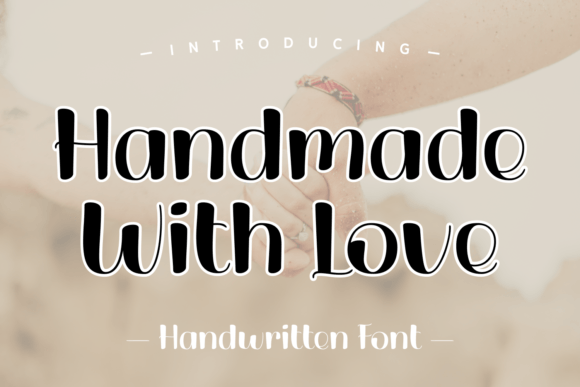
Unveil the allure of Handmade with Love, a script font crafted with meticulous care. Its flowing strokes and enchanting curves evoke a sense of timeless romance, making it the perfect accompaniment for your creative endeavors, adding a touch of elegance that captivates.
Slip into a world of sophistication with the Handmade with Love font, a masterpiece inspired by the beauty of handwritten letters. Its graceful lines and delicate details add a touch of charm to your designs, transforming them into exquisite works of art.
With its versatility, the Handmade with Love font adapts effortlessly to a myriad of projects, from wedding invitations that radiate love and elegance to social media graphics that exude a touch of artistry. Its essence shines through in branding materials, leaving an indelible mark on your audience.
Step into the realm of exquisite typography with the Handmade with Love font, a creation by Ade (7NTypes). Its enchanting aura captivates, leaving an enduring impression that resonates with your audience. Experience the allure of sophistication as your designs blossom with grace and refinement.